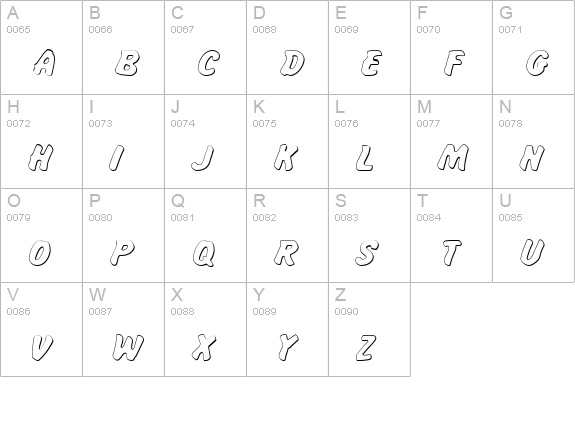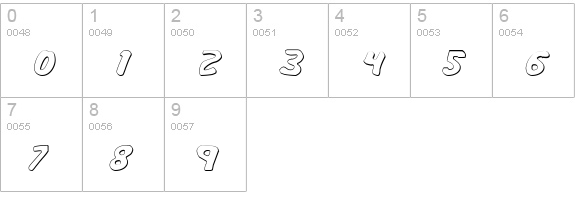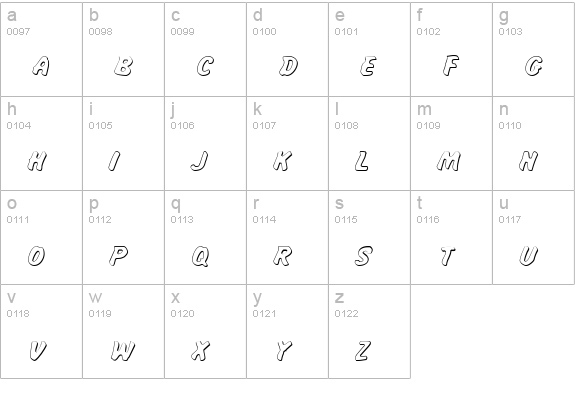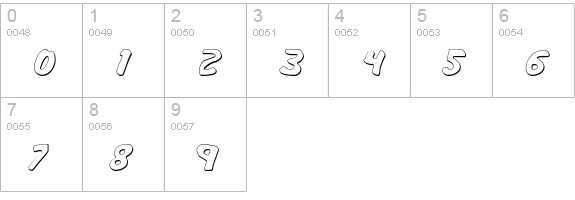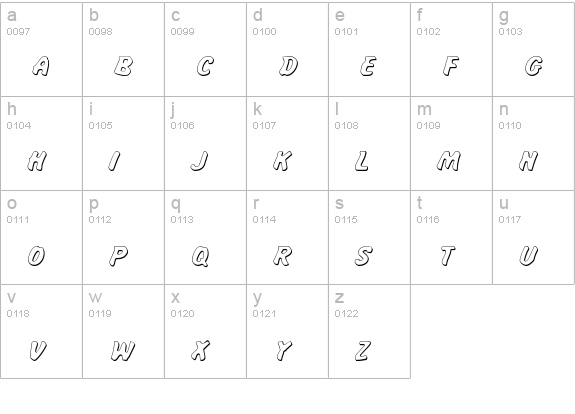
Miss Amanda Shadow Ital Font Details
Miss Amanda Shadow Ital font is a stylish and elegant typeface that exudes a sense of sophistication and grace. Its intricate design features unique shadow effects that add depth and dimension to the characters, making it perfect for adding a touch of luxury to any project. The italic styling of the font gives it a dynamic and dynamic look, making it ideal for use in a variety of design applications. What's even better is that Miss Amanda Shadow Ital font is available for free download at FontsMarket.com. This means that you can easily access this stunning typeface without any cost, making it a valuable addition to your font library. Whether you're working on a branding project, a wedding invitation, or any other creative endeavor, Miss Amanda Shadow Ital font is sure to elevate your design work to the next level. Don't miss out on the opportunity to enhance your projects with this exquisite font today!